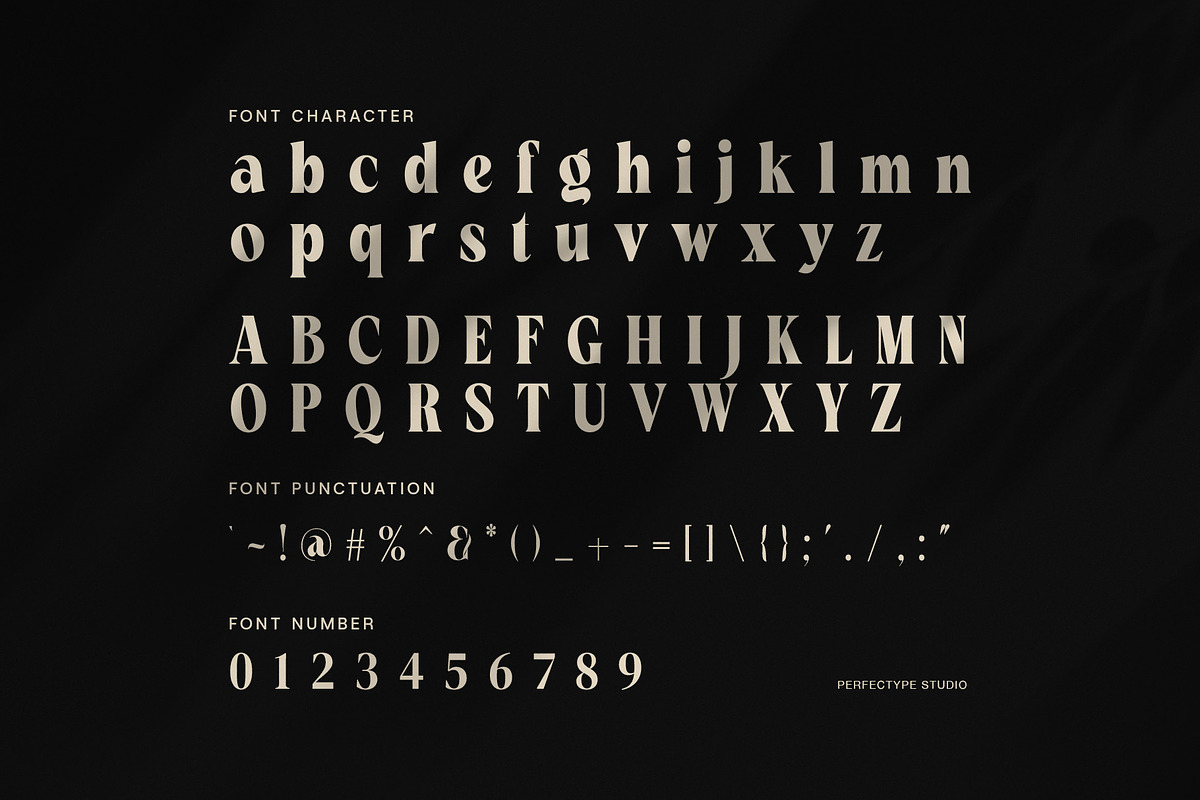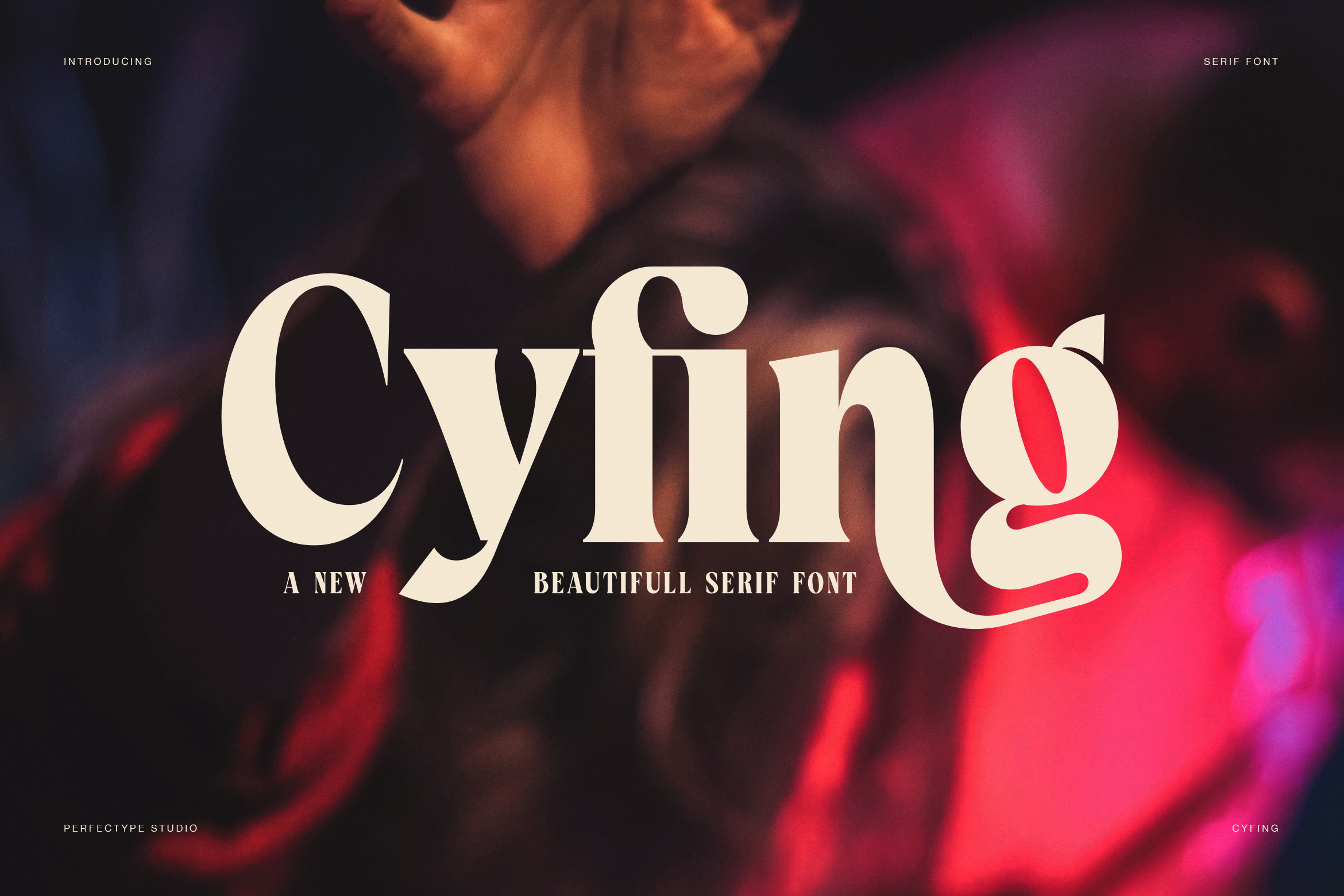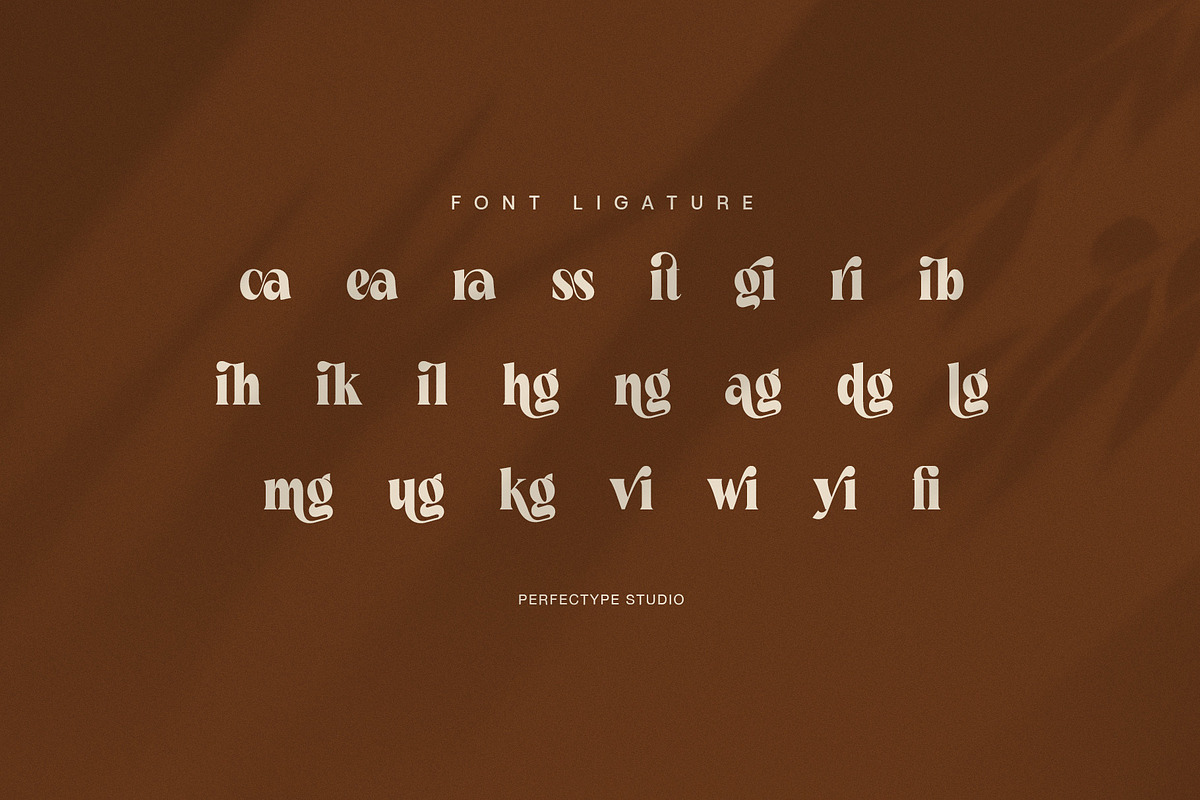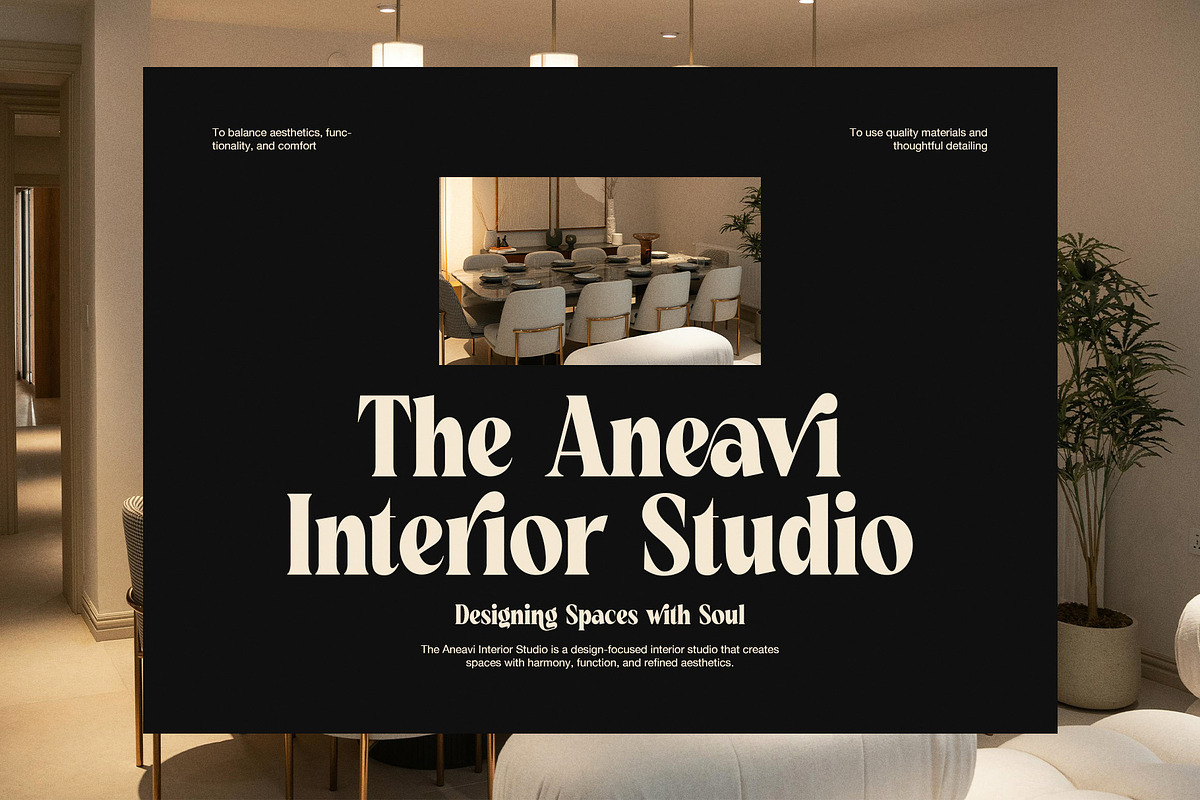
Cyfing Modern Elegant Serif Font
Modern Elegant Serif Font for Bold Branding
Cyfing is a modern elegant serif font designed to express confidence, style, and refined creativity. Moreover, it combines bold serif foundations with soft curves and smooth contrast, so every word feels strong yet graceful. Because of this balance, Cyfing works beautifully for modern branding, editorial layouts, and premium visual communication.
In addition, Cyfing features distinctive letter shapes that give headlines a unique personality. Therefore, logos, brand names, and titles feel memorable and expressive. At the same time, the structure remains clean and well balanced, which keeps text readable across different sizes. As a result, designers can use this font for both large headlines and supporting content.
Furthermore, Cyfing fits many creative industries. For example, it performs perfectly for fashion brands, talent agencies, creative studios, and lifestyle campaigns. It also suits interior design presentations, magazines, posters, and modern websites. Since the typography feels confident and contemporary, designs stand out without losing elegance.
Why designers choose Cyfing
Cyfing helps brands communicate modern elegance with clarity. Also, it supports storytelling through typography, which makes layouts feel intentional and professional.
Main features and benefits:
Modern serif letterforms with elegant curves
Strong contrast for impactful headlines
Stylish ligatures for smooth typography
Balanced proportions for clear readability
Confident uppercase for logos and titles
Clean lowercase for longer text
Complete punctuation and numerals
Suitable for print and digital design
Moreover, Cyfing creates a strong visual identity without feeling heavy. Instead of sharp extremes, it offers controlled rhythm and modern elegance. Because of that, brands feel bold, creative, and premium.
Finally, if you are looking for a modern elegant serif font that supports branding, editorial design, and creative storytelling, Cyfing delivers a versatile and professional solution.